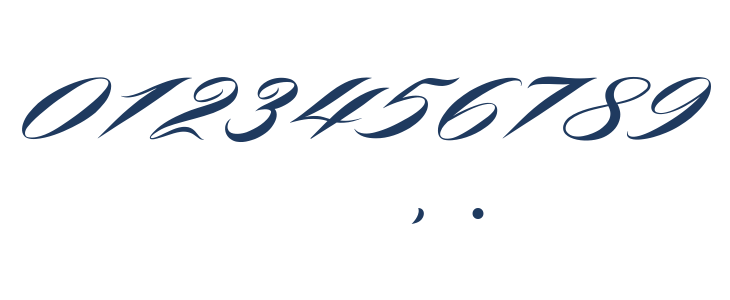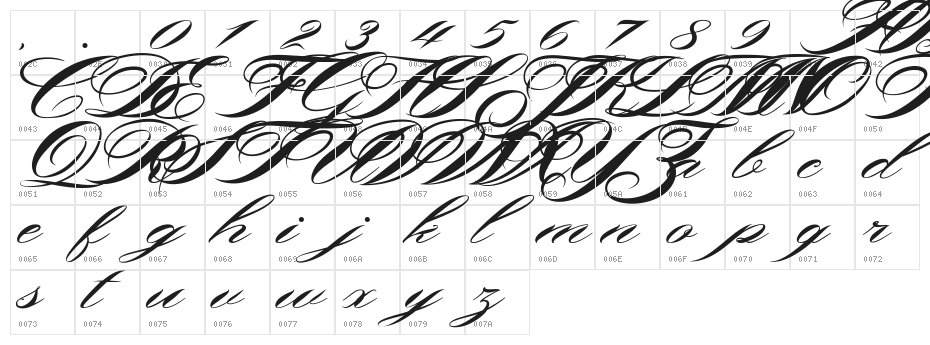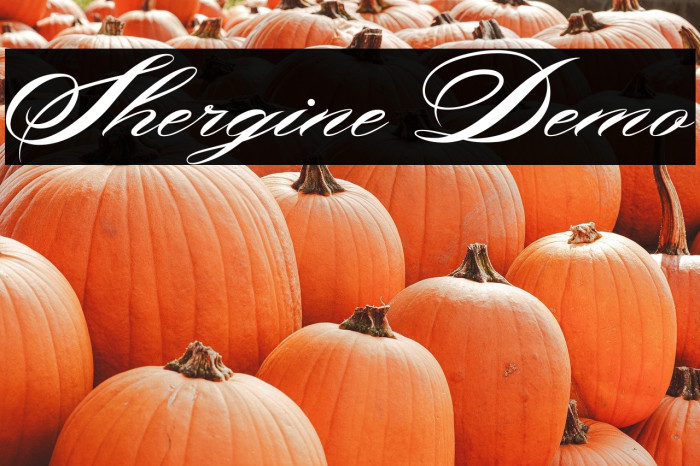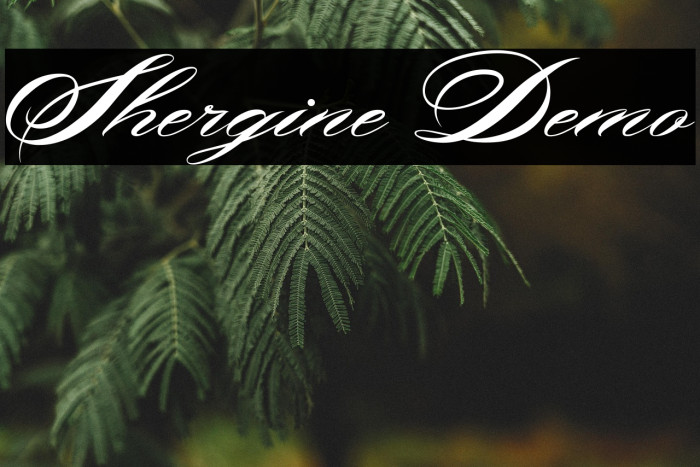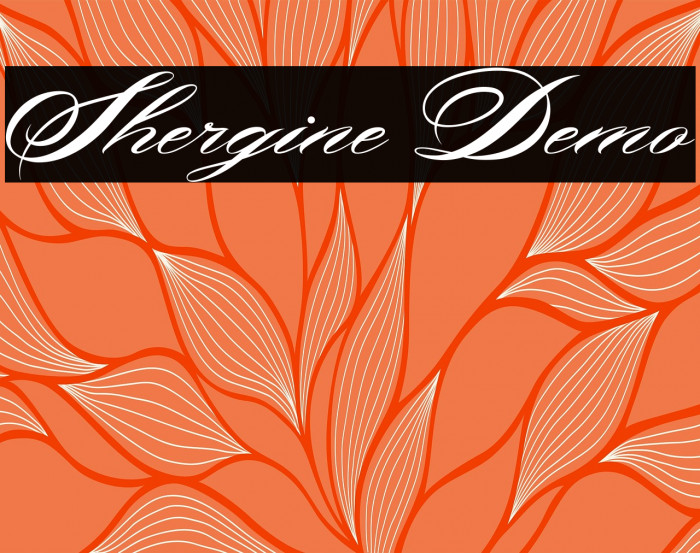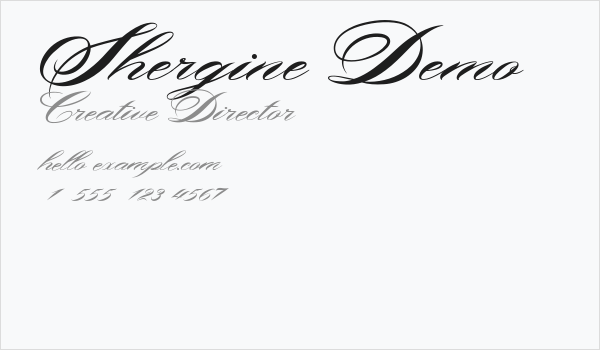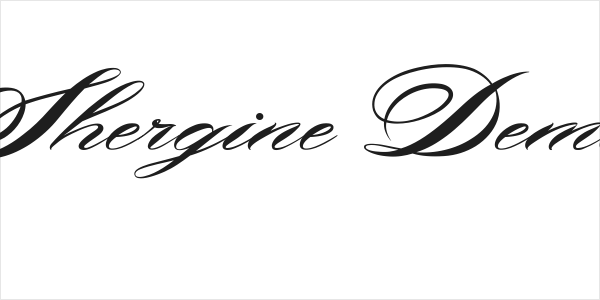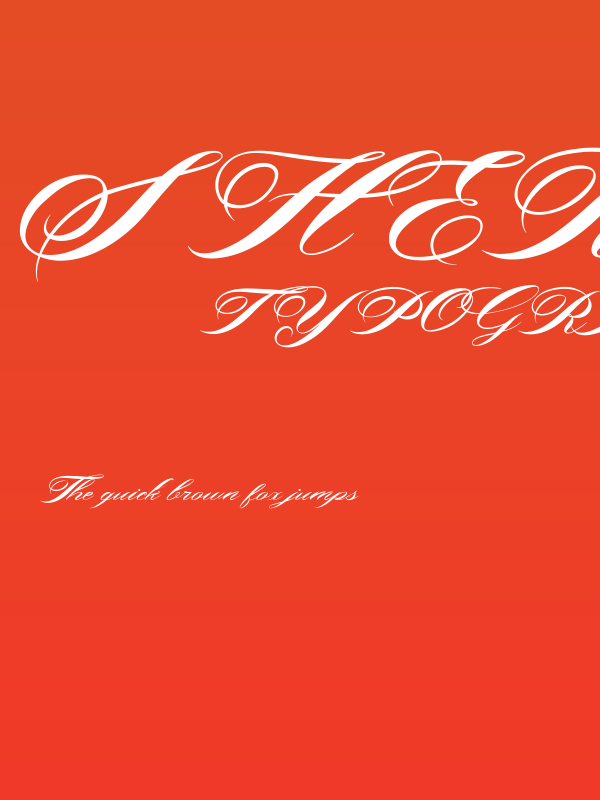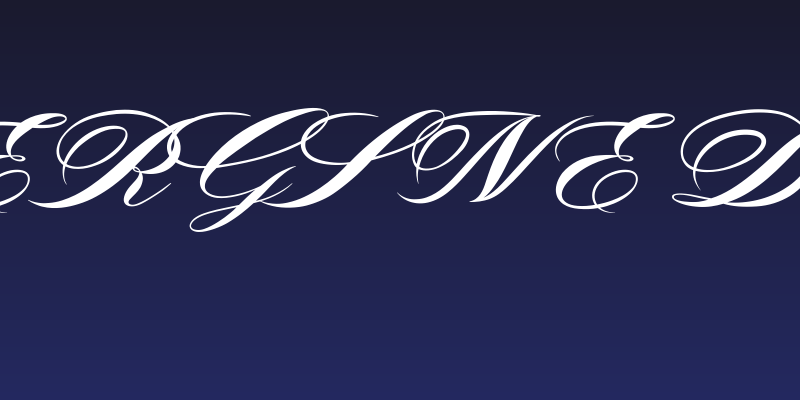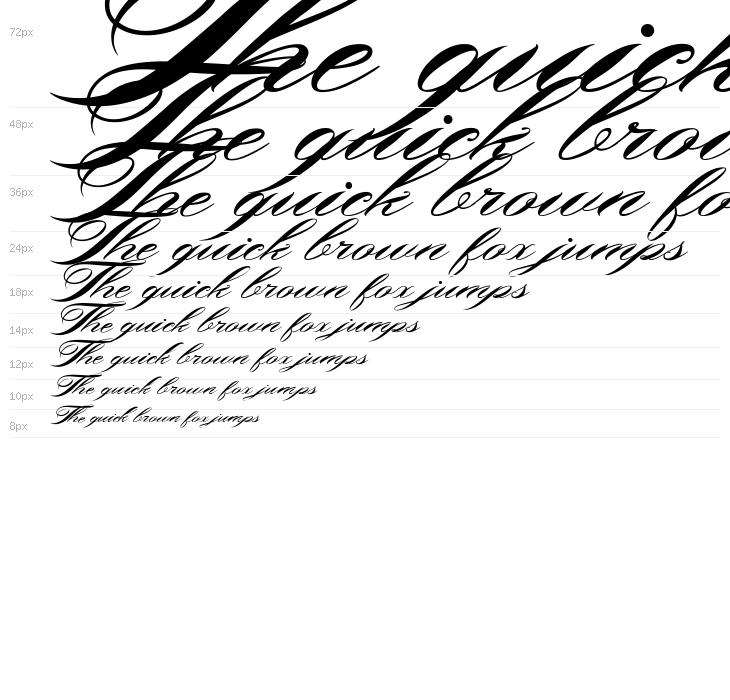
Shergine Demo Font
Shergine Demo Description
This elegant script font features flowing, cursive letterforms with high contrast between thick and thin strokes. The uppercase letters are ornate with intricate swashes and flourishes, while the lowercase letters maintain a graceful, connected style. The numerals are designed with a similar flair, adding a touch of sophistication. The special characters, including punctuation marks, are crafted to complement the overall aesthetic, making this font suitable for formal and decorative purposes. Its refined appearance is ideal for projects that require a touch of elegance and class.
| Overall Style | Elegant, Decorative |
| Proposed Projects | Wedding invitations, luxury branding, elegant stationery, formal event programs. |